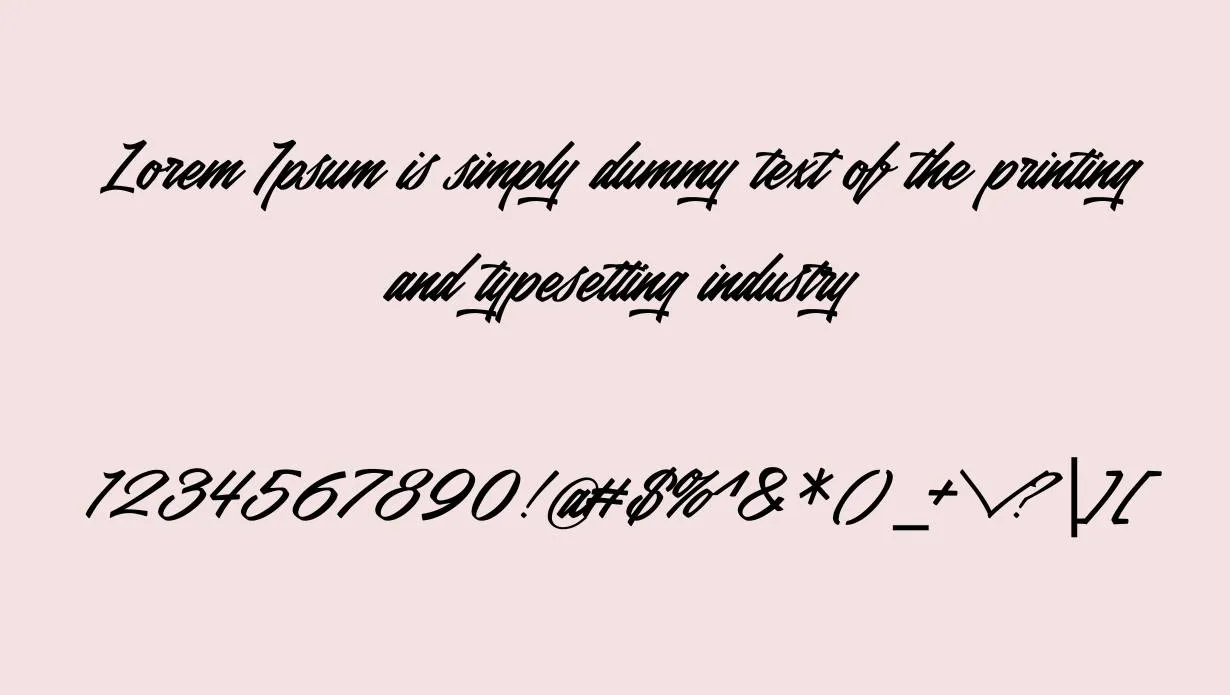
Valencia Calligraphy Font is a graceful and flowing script typeface that’s often chosen for elegant branding and romantic design projects.
| Name | Valencia Calligraphy Font |
| Designer | Graphic Pear |
Its cursive style and fluid strokes create a sense of sophistication and romance, making it a lovely choice for projects requiring a touch of class. By using the blacksword font alongside this typeface, you can achieve remarkable displays.